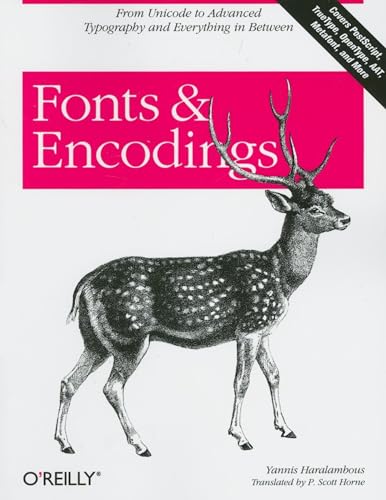
Fonts & Encodings
From Advanced Typography to Unicode and Everything in Between
Yannis Haralambous
BOOK REVIEW
Fonts & Encodings: From Advanced Typography to Unicode and Everything in Between is not merely a book; it is a magnum opus that unfurls the intricate tapestry of visual language, entwining the worlds of typography and encoding in ways that will leave you spellbound. Yannis Haralambous crafts an odyssey through the realms of letters and characters, showing us that beneath every word lies an expansive universe of design and technological marvel.
As you dive into this monumental work, spanning over a thousand pages, you'll find that each chapter is a key unlocking doors to knowledge and insight that many of us have overlooked. Whether you are a graphic designer, a web developer, or simply a curious mind, Haralambous has something profound waiting for you. He intricately dissects topics ranging from the basics of typographic design to the complex world of Unicode, enchanting the reader with historical anecdotes and practical applications that resonate with the digital age. 🎨✨️
The heart of this book is found in its ability to juxtapose the artistic with the technical. Haralambous deftly illustrates how fonts are not just characters on a screen, but living entities that carry emotional weight and cultural significance. Think about it: every time you read something, the typeface shapes your understanding, your feelings, and your engagement. Each font tells a story, and Fonts & Encodings is the guide that helps you interpret these tales. 📖💡
Readers have been electrified by Haralambous's insights, with many heralding it as a revelation that changed their perspective on communication. The book has sparked debates among design communities, some praising its depth while others challenge its comprehensiveness. Critics argue that while the book is dense, it is precisely this richness that elevates it to a must-read for anyone serious about typography and encoding systems. They feel-perhaps justifiably-that this work addresses a gaping hole in the literature, bridging gaps that were previously too wide for many to traverse.
Haralambous's background adds a fascinating layer to his writing. With roots that intertwine both the artistic and the scientific, he reflects a profound understanding of how culture influences design. He doesn't just share knowledge; he ignites a passion for exploring the nuances of written language. This is evident in the way he integrates historical context, showing how the evolution of fonts and encoding systems mirrors technological advances and shifts in societal values. You can sense his excitement as he guides you through the evolution of the written word, compelling you to reflect on your own connection to the text around you. 🔍💫
In an age where digital communication is ubiquitous, Haralambous implores us not to overlook the power of font selection and proper encoding. He challenges you to consider how the presentation of text can evoke emotions, motivate action, and strategically influence perceptions. The future of communication is here, and this book serves as both a manifesto and a tutorial on harnessing that potential.
Let's not forget the dizzying array of opinions from those who have ventured into this labyrinth of knowledge. Some lament its density, suggesting that it's more suited for advanced practitioners than novices. Yet, this very complexity is what makes the work stand tall in a sea of mediocre literature. If you seek to be swept off your feet, to awaken your sleeping creativity, and to appreciate the wondrous world of typography like never before, Fonts & Encodings calls to you.